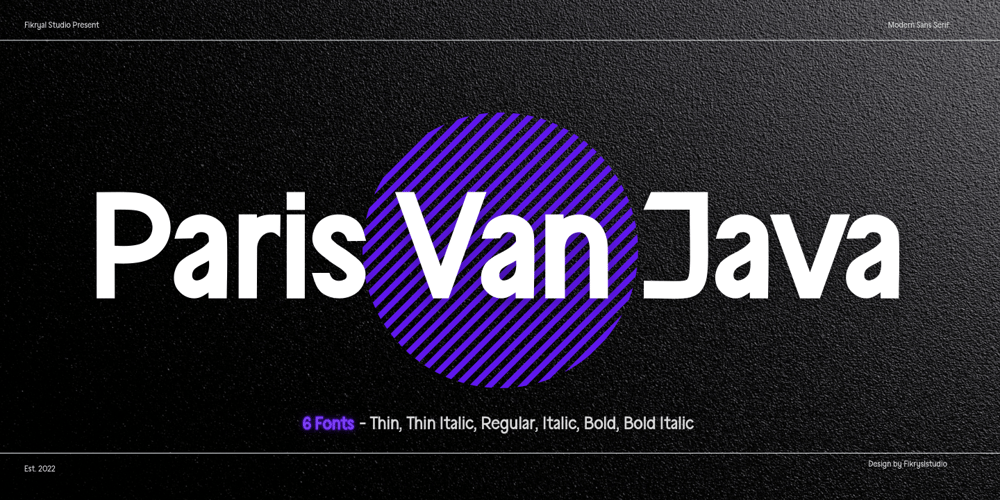
Paris Van Java Font Family was designed by Muhammad Fikry and published by Fikryal. Paris Van Java contains 6 styles and family package options. Introducing this very simple sans serif font that is Paris Van Java, the font Family. I created this font with the inspiration of simplicity and it is very friendly to look at, with four versions, namely regular, italic, bold, bold italic. Very suitable to be applied in various aspects of design, Also it’s perfect for logo, branding, title, social media posts, advertisements, product packaging, product designs, label, photography, watermark, special event, magazine, web designs, etc.Features : Symbols multilingual support If you have any questions please don’t hesitate to contact mefollow my Instagram: @fkryallThank you